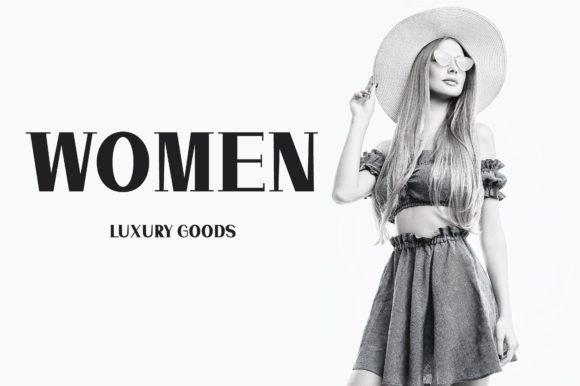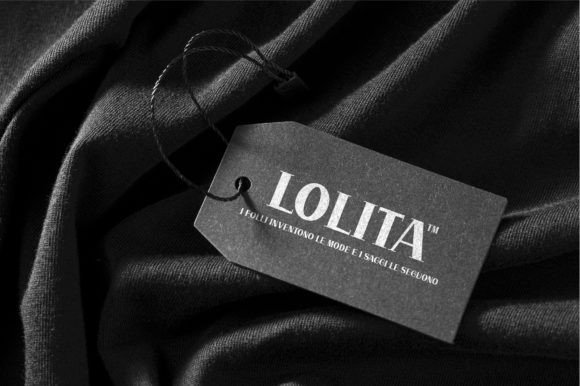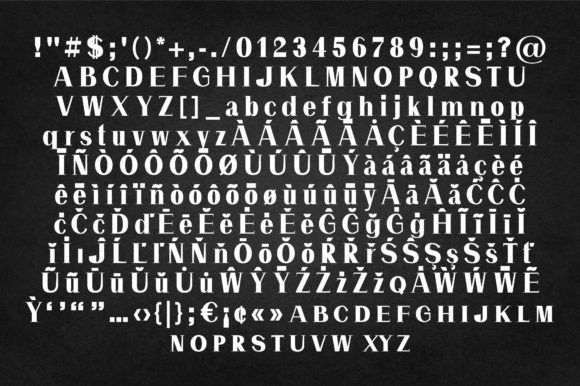
Introduction to Lolita Font
Lolita, as the name suggests, is a romantic typeface that was intended to express romantic sad themes.
It also fits very well when it comes to fashion design, packaging design, cosmetics, and perfume design It would be a great choice when you require a delicate yet elegant font to use in really particular creations.
Key Features of Lolita Font